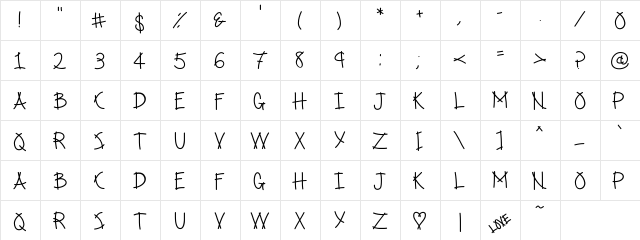
SpringRolls Medium
Design Context for SpringRolls Typeface
SpringRolls is a composed and adaptable typeface that performs quietly and consistently across a wide range of design contexts.